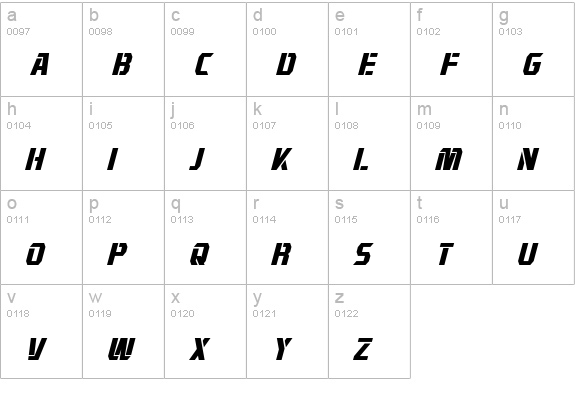
Combatron Italic Font Details
Combatron Italic is a distinctive, italic variant in the Combatron typeface family \xE2\x80\x94 well suited to design and typography projects.
Combatron Italic is a strikingly bold and dynamic font that exudes power and strength. Its sleek and angular design captures the essence of modern combat, making it the perfect choice for projects that require a fierce and commanding presence. The italicized letterforms add a touch of elegance and sophistication, creating a unique blend of intensity and refinement. With its sharp edges and fearless style, Combatron Italic demands attention and leaves a lasting impression. Its strong and confident appearance makes it ideal for a wide range of applications, from action-packed movie posters to powerful logo designs. Whether you're looking to create an impactful headline or add a touch of edginess to your branding, Combatron Italic is sure to make a statement. What sets Combatron Italic apart is not only its captivating aesthetics but also its availability as a free download at FontsMarket.com. This means that you can easily access this powerful font without any cost, making it a valuable asset for designers, creatives, and enthusiasts alike. Its freely accessible nature ensures that you can unleash your creativity and bring your vision to life without any barriers. So, if you're searching for a font that combines strength, elegance, and accessibility, look no further than Combatron Italic. Download it for free today at FontsMarket.com and let this commanding typeface take your designs to new heights.